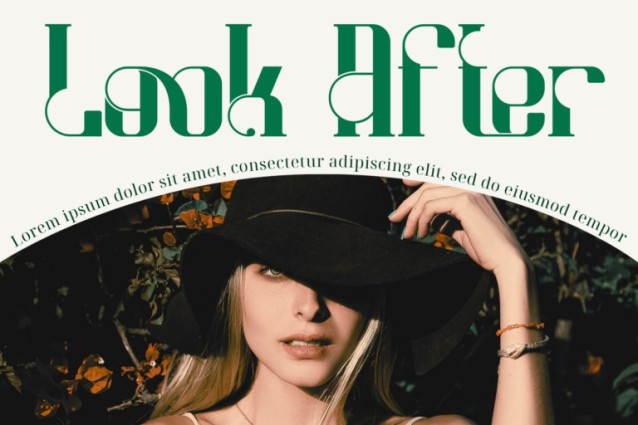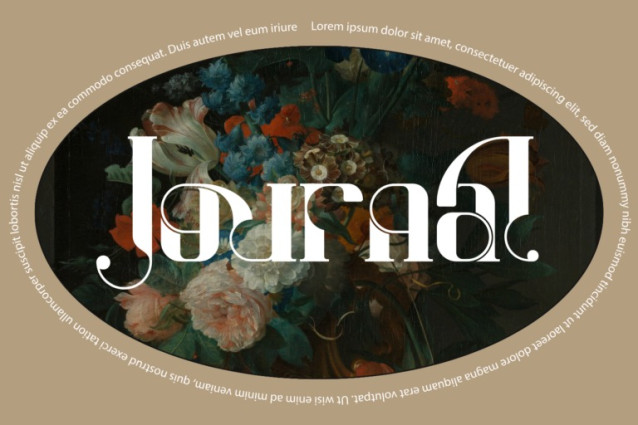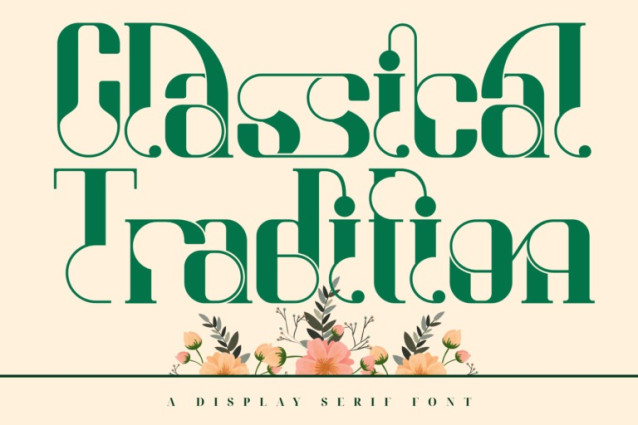
Classical Tradition Font
Classical Tradition – Geometric Font – A Geometric Deco Display Typeface, a bold and stylish geometric display font that reimagines classic Art Deco influences through a modern, minimalist lens. With its sculptural letterforms, rounded counters, and rhythmic contrast, this font brings a touch of elegance and eccentricity to every design.
Carefully crafted to feel both classical and futuristic, Classical Tradition is ideal for editorial headlines, luxury packaging, fashion branding, posters, and logo designs that demand a unique visual identity.
Features:
Uppercase & Lowercase Letters
Around 100 Special Ligatures
Accented Characters for multilingual support
About 100 ligatures combined with Stylistic Alternates Font: